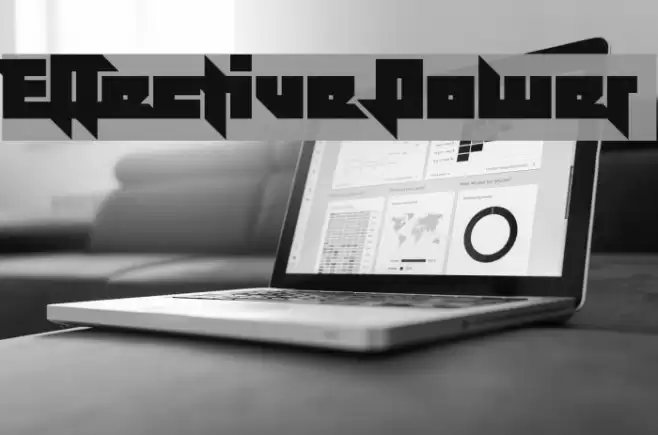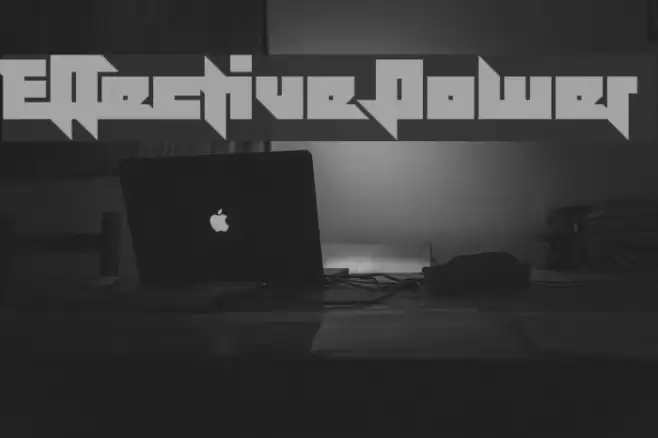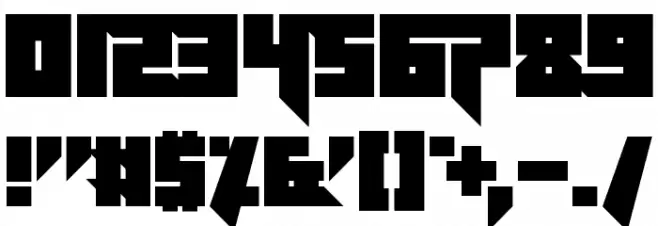
Effective Power Font
Effective Power Description
This font features a bold and angular design, characterized by sharp edges and geometric shapes. The letters are constructed with a futuristic and aggressive style, making them stand out with a strong visual impact. The uppercase and lowercase letters maintain a consistent design, with each character exhibiting a unique angular cut that adds to the overall dynamic appearance. The numbers and special characters follow the same stylistic approach, ensuring uniformity across all glyphs. This font is ideal for projects that require a modern and edgy aesthetic, such as technology-related branding or sci-fi themed designs.
A bold, angular font with a futuristic and aggressive style from Modern fonts.
- Proposed Projects: Ideal for technology branding, sci-fi themes, video game titles, and edgy poster designs.